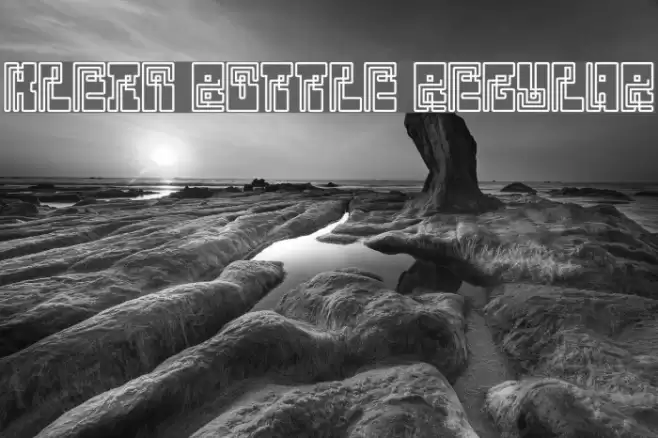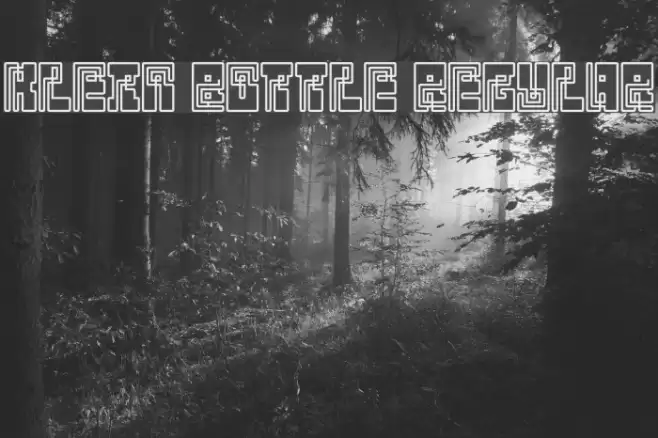
Klein Bottle Regular Font
Klein Bottle Regular Description
This font features a highly geometric and maze-like design, characterized by intricate, interconnected lines that form each letter and symbol. The structure is bold and eye-catching, with a unique, almost puzzle-like appearance. Each character is enclosed within a square or rectangular boundary, enhancing its distinctiveness. The font's style is reminiscent of digital or electronic aesthetics, making it suitable for modern and futuristic themes. Its complex design may challenge readability at smaller sizes, but it excels in creating a strong visual impact when used at larger scales.
A geometric, maze-like font with a bold, digital aesthetic from Uncategorized fonts.
- Proposed Projects: Ideal for digital art, sci-fi themed projects, video game titles, and modern branding.